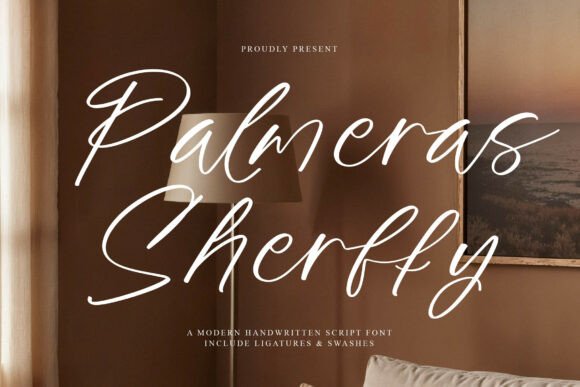
Introducing Palmeras Sherffy Font: Elevate Your Design with Elegance
In the world of typography, fonts play a crucial role in conveying the tone and personality of a brand, product, or service. A well-designed font can instantly elevate the aesthetic appeal of a design, making it more engaging and memorable. One such font that has been making waves in the design community is Palmeras Sherffy, a modern handwritten script font that exudes elegance and sophistication.
What is Palmeras Sherffy Font?
Palmeras Sherffy is a modern handwritten script font designed to bring a touch of elegance to various design applications, including branding, wedding stationery, and editorial design. Its refined, effortless flow makes it an ideal choice for designers looking to add a personal and upscale touch to their compositions.
Key Features of Palmeras Sherffy Font
- Stylish Ligatures and Swashes: Palmeras Sherffy boasts an impressive collection of stylish ligatures and swashes, which allow designers to create unique and visually appealing compositions.
- Modern Handwritten Script: The font’s modern handwritten script style gives it a fresh and contemporary feel, making it perfect for designs that require a touch of sophistication.
- Elegant Flow: The font’s refined, effortless flow ensures that words and sentences flow smoothly, creating a seamless reading experience.
Use Cases for Palmeras Sherffy Font
Palmeras Sherffy is a versatile font that can be used in various design applications, including:
- Branding: Use Palmeras Sherffy to create elegant and sophisticated brand identities that leave a lasting impression.
- Wedding Stationery: Add a touch of romance and elegance to wedding invitations, save-the-date cards, and other stationery designs.
- Editorial Design: Use Palmeras Sherffy to create visually appealing editorial designs, such as magazine articles, blog posts, and book covers.
Benefits of Using Palmeras Sherffy Font
By incorporating Palmeras Sherffy into your design projects, you can enjoy several benefits, including:
- Enhanced Elegance: Palmeras Sherffy adds a touch of sophistication and elegance to any design, making it perfect for high-end brands and luxury products.
- Increased Readability: The font’s refined flow and stylish ligatures ensure that text is easy to read, making it ideal for body text and headings.
- Unique Compositions: With Palmeras Sherffy’s extensive collection of ligatures and swashes, you can create unique and visually appealing compositions that stand out from the crowd.
Design Tips for Using Palmeras Sherffy Font
To get the most out of Palmeras Sherffy, here are some design tips to keep in mind:
- Pair with Neutral Colors: Palmeras Sherffy looks stunning when paired with neutral colors, such as black, white, and gray. This allows the font’s elegance to take center stage.
- Experiment with Ligatures and Swashes: Don’t be afraid to experiment with Palmeras Sherffy’s ligatures and swashes to create unique and visually appealing compositions.
- Use for Headings and Titles: Palmeras Sherffy is perfect for headings and titles, where its elegance and sophistication can be showcased.
Font Pairing Suggestions for Palmeras Sherffy
To create harmonious and visually appealing designs, it’s essential to pair Palmeras Sherffy with complementary fonts. Here are some font pairing suggestions:
- Open Sans: This clean and modern sans-serif font pairs beautifully with Palmeras Sherffy, creating a harmonious contrast between elegance and simplicity.
- Lato: This elegant sans-serif font shares a similar feel with Palmeras Sherffy, making it an excellent choice for body text and headings.
- Merriweather: This classic serif font pairs nicely with Palmeras Sherffy, creating a sophisticated and elegant design.
Palmeras Sherffy is a stunning modern handwritten script font that can elevate your designs with its elegance and sophistication. With its refined flow, stylish ligatures, and swashes, this font is perfect for branding, wedding stationery, and editorial design. By following the design tips and font pairing suggestions outlined in this article, you can create visually appealing compositions that showcase the beauty of Palmeras Sherffy.